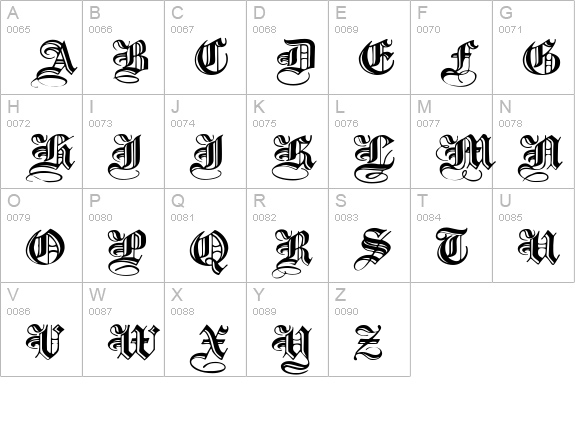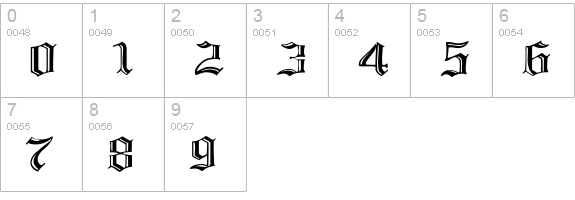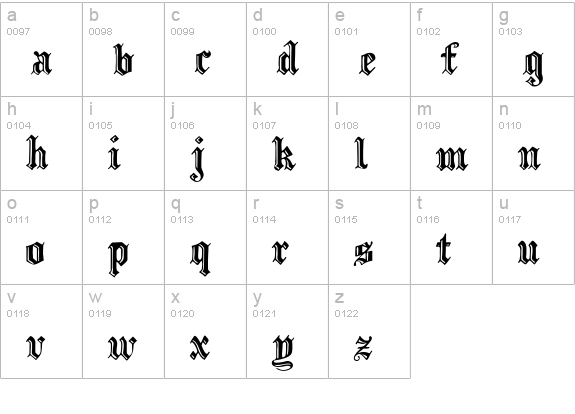
IncisedBlackWide Normal Font Details
IncisedBlackWide Normal is the standard, neutral variant in the IncisedBlackWide typeface family \xE2\x80\x94 well suited to general body text, paragraphs, and standard typographic work.
The IncisedBlackWide Normal font is a stunning and versatile typeface that exudes elegance and sophistication. With its sleek and bold design, this font is perfect for headlines, titles, and logos that demand attention. Its clean lines and sharp angles give it a modern and edgy appeal, making it ideal for contemporary designs. This font is meticulously crafted with precision and attention to detail, ensuring that each character is visually striking and visually appealing. The IncisedBlackWide Normal font is designed to make a bold statement and leave a lasting impression on any project it is used for. One of the best things about the IncisedBlackWide Normal font is that it is freely available to download at FontsMarket.com. This means that you can easily access and use this font in your design projects without any hassle or cost. Whether you are a professional designer or a casual user, this font offers you the opportunity to enhance your creations with a stylish and impactful typeface. With its wide range of characters and glyphs, the IncisedBlackWide Normal font provides ample flexibility and versatility. From uppercase letters to numbers and punctuation marks, this font has everything you need to bring your designs to life. Its legibility and readability ensure that your message will be effectively communicated to your audience. The IncisedBlackWide Normal font is a must-have for anyone looking to add a touch of sophistication and modernity to their designs. Its bold and confident aesthetic will elevate your projects and make them stand out from the crowd. So why wait? Download the IncisedBlackWide Normal font now, for free, at FontsMarket.com and unlock a world of design possibilities.